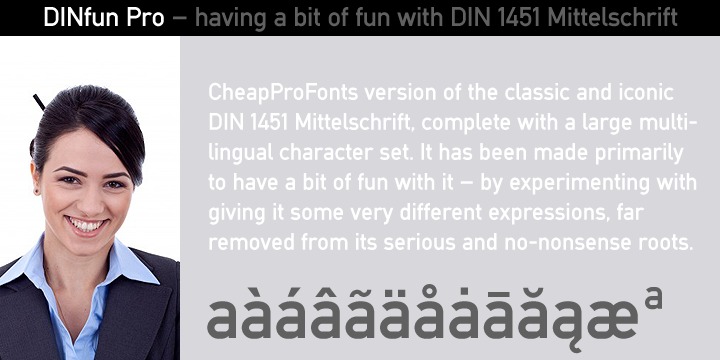
This is my version of the classic DIN 1451 Mittelschrift, complete with a large multilingual character set. I have made it primarily because I want to have a bit of fun with it by experimenting with giving it some very different expressions - far removed from its serious and no-nonsense roots. Time to spice up that DIN profile! Check out the purchase options for all the themed variants! :)
They contain some unusual diacritic letters (some of which are contained in the Latin Extended-B Unicode block) supporting: Cornish, Filipino (Tagalog), Guarani, Luxembourgian, Malagasy, Romanian, Ulithian and Welsh.
They also contain all glyphs in the Latin Extended-A Unicode block (which among others cover the Central European and Baltic areas) supporting: Afrikaans, Belarusian (Lacinka), Bosnian, Catalan, Chichewa, Croatian, Czech, Dutch, Esperanto, Greenlandic, Hungarian, Kashubian, Kurdish (Kurmanji), Latvian, Lithuanian, Maltese, Maori, Polish, Saami (Inari), Saami (North), Serbian (latin), Slovak(ian), Slovene, Sorbian (Lower), Sorbian (Upper), Turkish and Turkmen.
And they of course contain all the usual “western” glyphs supporting: Albanian, Basque, Breton, Chamorro, Danish, Estonian, Faroese, Finnish, French, Frisian, Galican, German, Icelandic, Indonesian, Irish (Gaelic), Italian, Northern Sotho, Norwegian, Occitan, Portuguese, Rhaeto-Romance, Sami (Lule), Sami (South), Scots (Gaelic), Spanish, Swedish, Tswana, Walloon and Yapese.